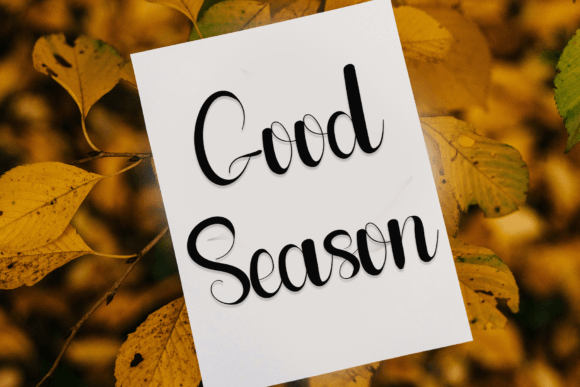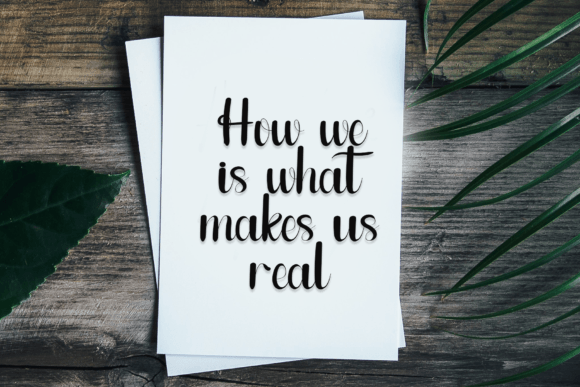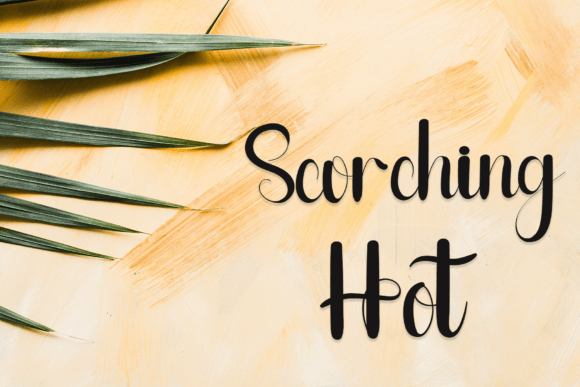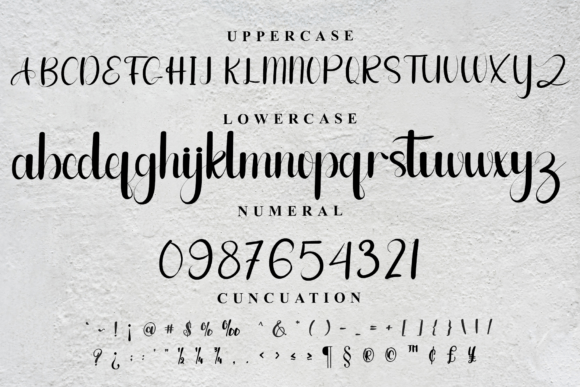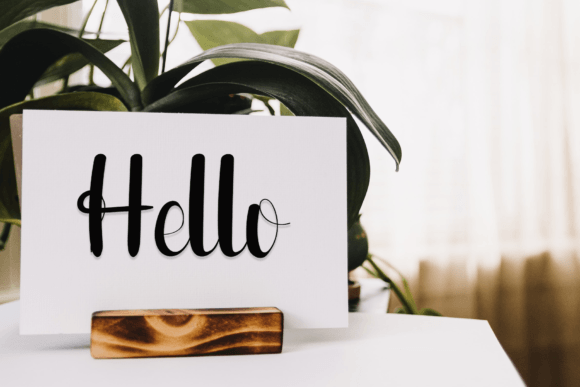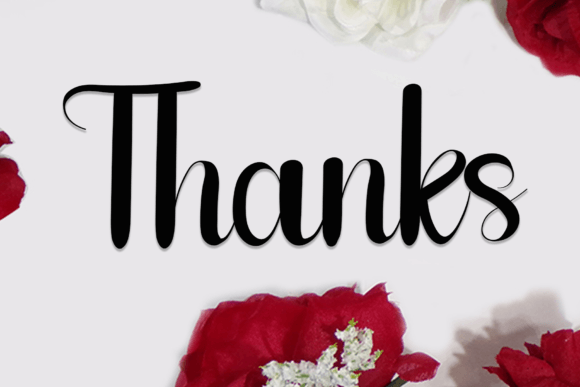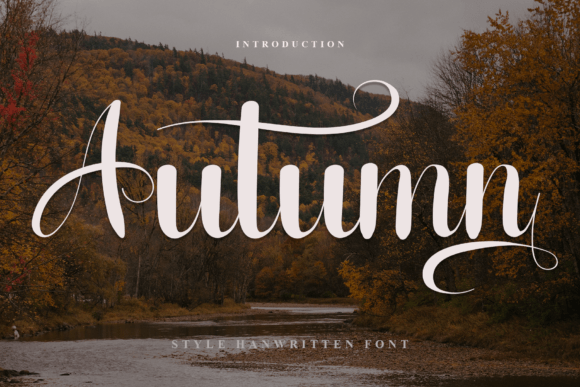
Introducing Autumn Font: Elevate Your Designs with Elegance
As the seasons change and autumn leaves start to fall, designers and crafters are on the lookout for fresh inspiration to infuse their projects with a touch of warmth and coziness. This is where the Autumn Font comes into play – a stunning, handwritten typeface that embodies the essence of the season. With its elegant touch and timeless style, Autumn Font is poised to become your go-to choice for creating spectacular designs that capture the hearts of your audience.
The Charm of Autumn Font
Autumn Font is described as a neat and beautiful handwritten font, and for good reason. Its letters are carefully crafted to exude an air of sophistication and refinement, making it perfect for a wide range of projects, from branding and advertising to packaging and editorial design. The font’s elegant touch is instantly noticeable, adding a level of luxury and polish to any design it’s used in.
What Sets Autumn Font Apart
So, what makes Autumn Font stand out from the crowd? Here are a few key features that set it apart:
- Incredibly distinct style: Autumn Font boasts a unique and recognizable aesthetic that’s sure to leave a lasting impression on your audience.
- Timeless appeal: Unlike trendy fonts that may quickly go out of style, Autumn Font’s classic charm ensures it will remain relevant for years to come.
- Versatility: Whether you’re designing for print or digital, Autumn Font adapts seamlessly to various mediums and applications.
Autumn Font is a dream come true for designers and crafters looking to elevate their projects with a personal touch. Here are just a few ways you can use Autumn Font to take your designs to the next level:
- Branding and logos: Create a lasting impression with a custom logo that showcases your brand’s personality and style.
- Stationery and invitations: Add a touch of elegance to your stationery, invitations, and greeting cards with Autumn Font’s beautiful handwriting.
- Packaging and product design: Stand out on store shelves with eye-catching packaging that incorporates Autumn Font’s distinctive style.
- Editorial design: Bring a level of sophistication to your editorial projects, such as magazines, blogs, and books, with Autumn Font’s refined aesthetic.
Tips for Using Autumn Font
To get the most out of Autumn Font, here are a few tips to keep in mind:
- Pair with complementary fonts: Combine Autumn Font with other fonts that complement its style to create visual interest and hierarchy.
- Experiment with colors: Autumn Font looks stunning in a range of colors, from rich jewel tones to soft pastels. Don’t be afraid to experiment and find the perfect hue for your design.
- Play with texture and patterns: Add depth and visual interest to your design by incorporating textures and patterns that complement Autumn Font’s elegant style.
Autumn Font is a beautiful, elegant, and versatile handwritten font that’s perfect for designers and crafters looking to create stunning designs. With its incredibly distinct and timeless style, Autumn Font is sure to become a favorite in your design arsenal. So why wait? Fall in love with Autumn Font and start creating spectacular designs that capture the essence of the season!